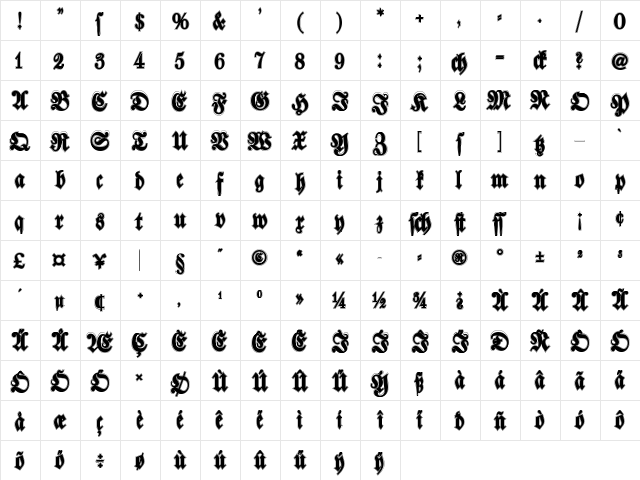
Walbaum Fraktur Bold
| Designer | Dieter Steffmann |
Design Context for Walbaum Fraktur Typeface
Walbaum Fraktur channels the dramatic heritage of Fraktur and Gothic scripts, bringing a sense of historical gravitas to any design. The heavy weight commands attention and anchors typographic hierarchies.
A natural fit for music packaging, gothic editorial design, and any project that needs historical weight.
Font Pairing: Pair with a clean neutral sans-serif for body copy to let Walbaum Fraktur's character lead without overwhelming the composition.
Pro Tip: Reserve Walbaum Fraktur for display and logo use — pair it with a clean sans-serif for body copy to prevent the composition from feeling oppressive.